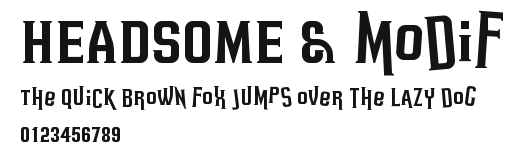
• Font Name: HEADSOME & modif
• Full Font Name: HEADSOME & modif
• Version: Version 1.00 December 30, 2013, initial release
• Designer: Situjuh Nazaea
• Description: Headsome and Modif is a font designed for strong headline and creative design works. The lowercase is the modification of the uppercase. Enjoy!
About HEADSOME & modif.ttf
HEADSOME & modif.ttf is a modern, elegant sans-serif font designed for ultimate readability and visual harmony. Perfect for branding, headlines, web design, and print materials.